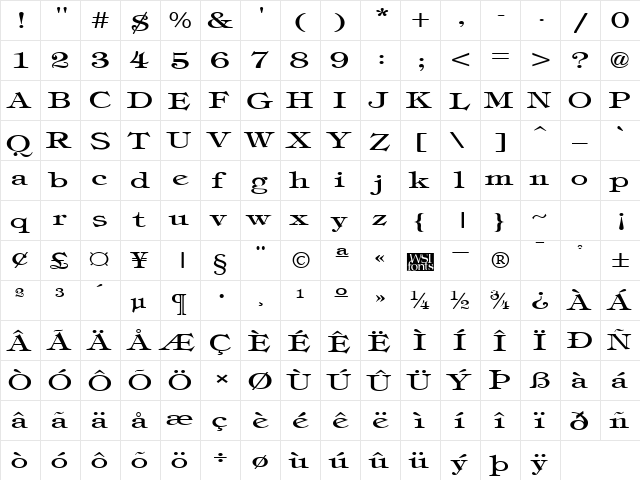
TimbrelBroad Regular
Design Context for TimbrelBroad Typeface
TimbrelBroad is a composed and adaptable typeface that performs quietly and consistently across a wide range of design contexts.